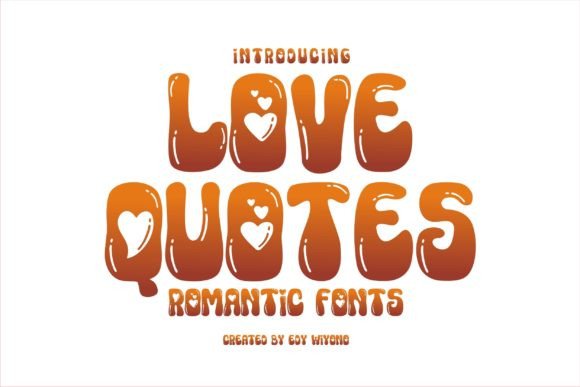
Indulge in the exquisite realm of Love Quotes Font, a decorative font family that exudes charm and playfulness. Designed by the creative mind of edywiyonopp, this enchanting font is a true gem, ready to add a touch of whimsy to your digital creations.
Love Quotes Font is not just a font; it's an emotional journey, a symphony of strokes that dances across your screen, evoking feelings of love and joy. Each letter is meticulously crafted, adorned with intricate details and flourishes that capture the essence of romance and affection.
Immerse yourself in the vast collection of Love Quotes Font, a treasure trove of typographic artistry. With its extensive range of styles, this font family caters to your every creative need, allowing you to express your love in countless ways. From heartfelt love letters to enchanting invitations, from whimsical greeting cards to captivating social media posts, Love Quotes Font is your perfect companion.
Unleash your creativity and let your imagination soar with Love Quotes Font. Its versatility knows no bounds, making it the ideal choice for a myriad of projects. Whether you're a seasoned designer, a budding artist, or simply someone who loves to add a touch of personal flair to their digital creations, Love Quotes Font is the key to unlocking your creative potential.
Imagine the impact of your love letters, adorned with the graceful curves and elegant strokes of Love Quotes Font. Your words will dance across the page, carrying a weight of emotion that transcends mere ink on paper. Your recipient's heart will flutter with delight as they unravel the tale of your affection, conveyed in a font that speaks volumes.
Love Quotes Font is more than just a font; it's an experience, an expression of your innermost emotions, a celebration of love in all its forms. Let this font be your muse, your creative catalyst, as you embark on a journey of heartfelt storytelling.
Don't resist the allure of Love Quotes Font. Its charm is undeniable, its beauty captivating. Embrace the power of love and let this font ignite your creative spark. Make a statement, leave an impression, and let your creations speak volumes about the love that resides within you.